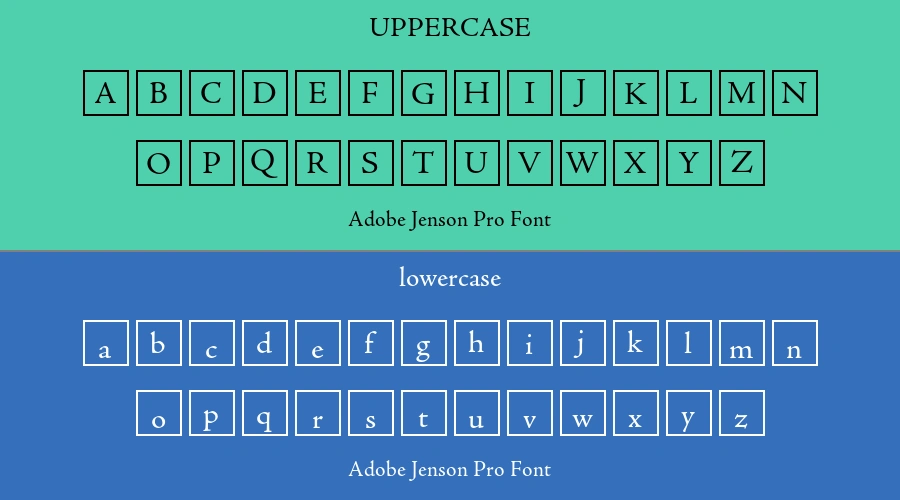
About Adobe Jenson Pro Font
Adobe Jenson Pro Font represents a sophisticated approach to type design, balancing ornamental details with durability. Perfect for magazine layout, this font family showcases impressive personality and user trust throughout its character set. Designers appreciate its versatility and reliability.
Designers will appreciate nuanced touches including flowing forms and brand signatures, adding sophistication to any project. These features become apparent in digital banners, where reproduction fidelity matters most. The careful treatment of crossbar height and engineering heritage ensures optimal performance.